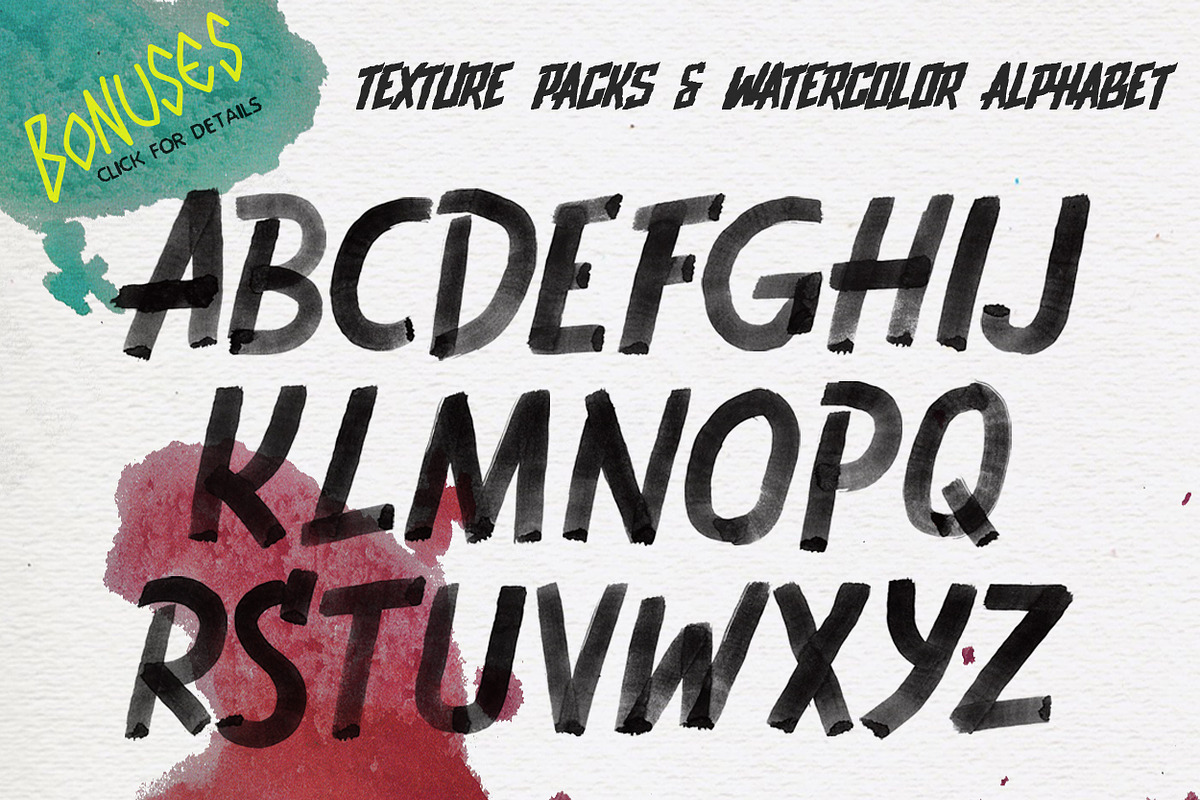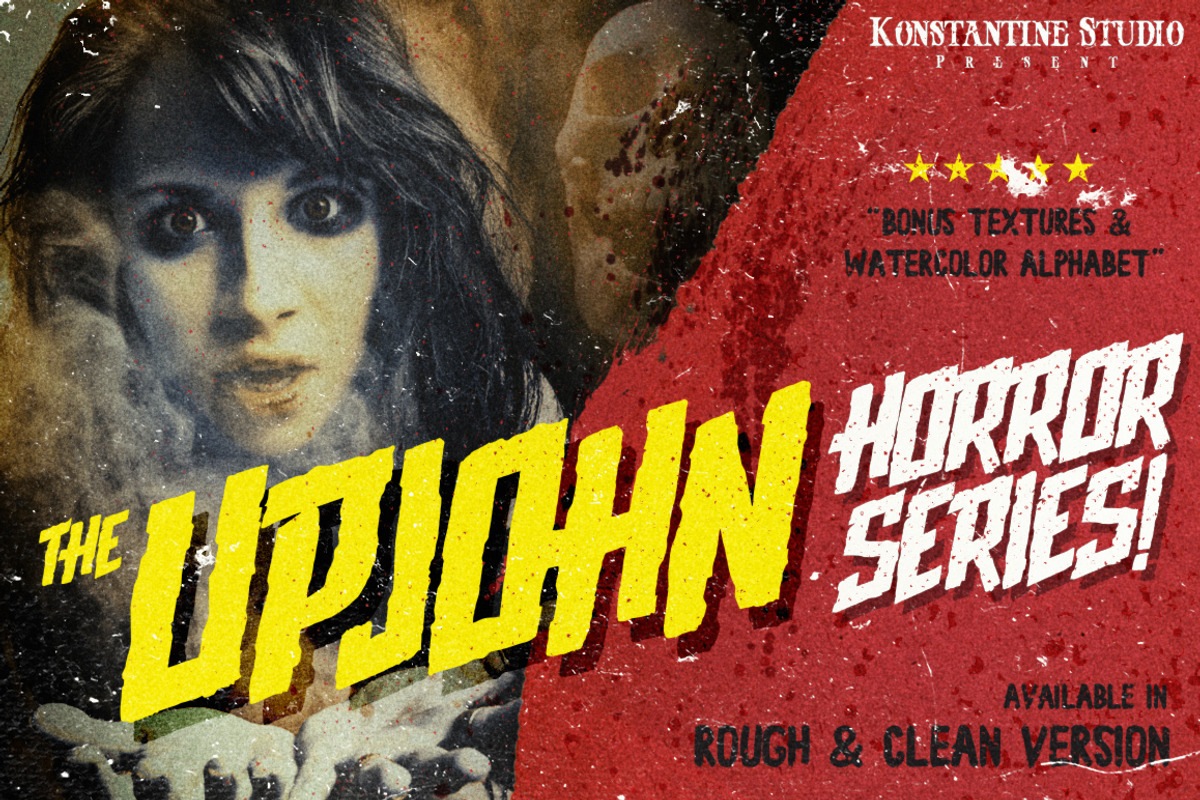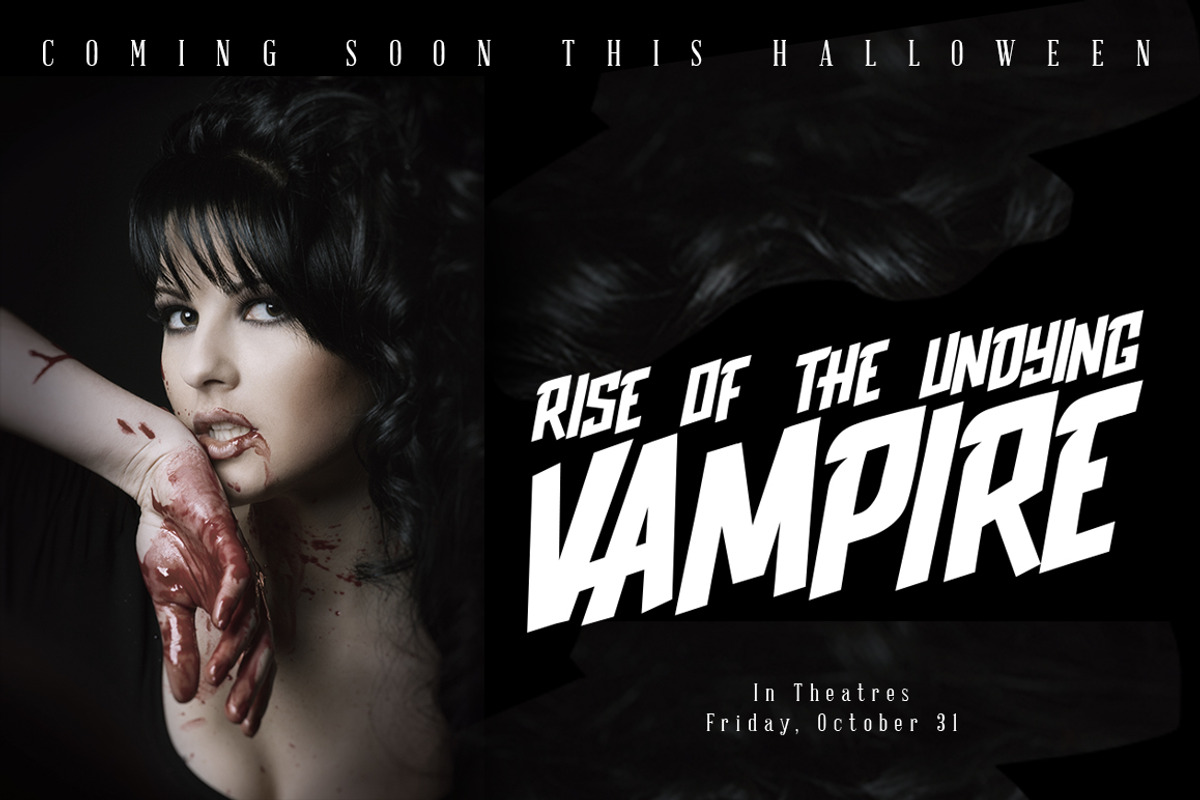
Upjohn Halloween Brush horror font
Upjohn Halloween Brush horror font by Konstantine Studio is a font selected for branding, posters, packaging, typography.
- The Upjohn Typeface Inspired from Horror and Thriller movie posters back in old era, with bold and solid stroke styles that pointed to the i
- Watercolor Alphabets Contains the 28 alphabet from A to Z written using the square brush and watercolour paint.
Why Upjohn Halloween Brush horror font is worth a look
Upjohn Halloween Brush horror font by Konstantine Studio fits naturally into Branding, posters, packaging, typography.